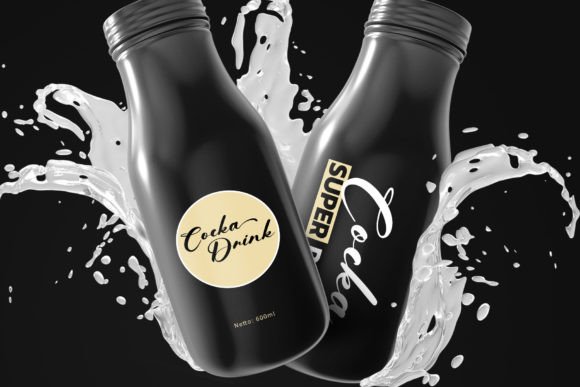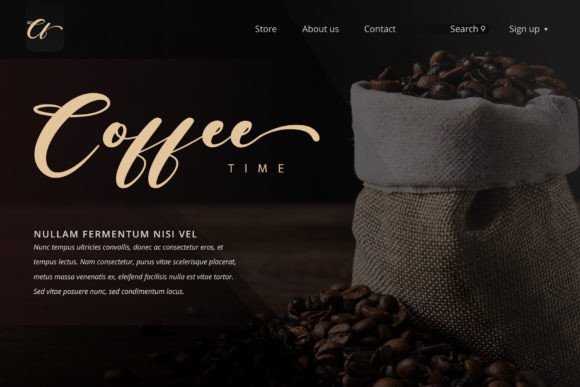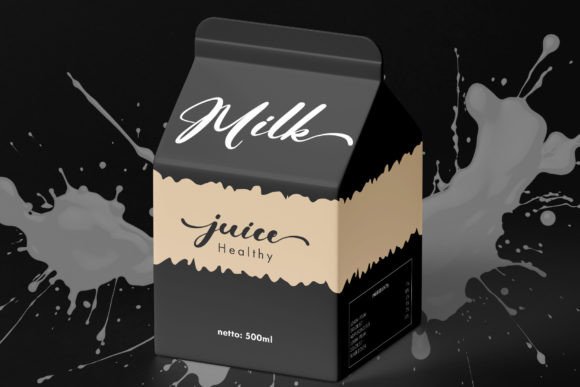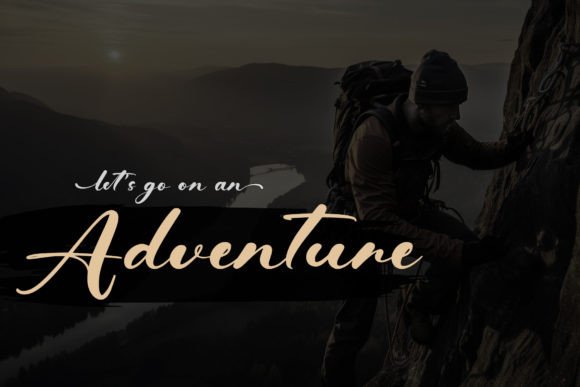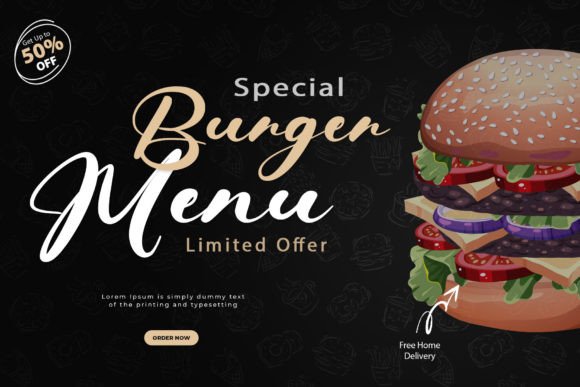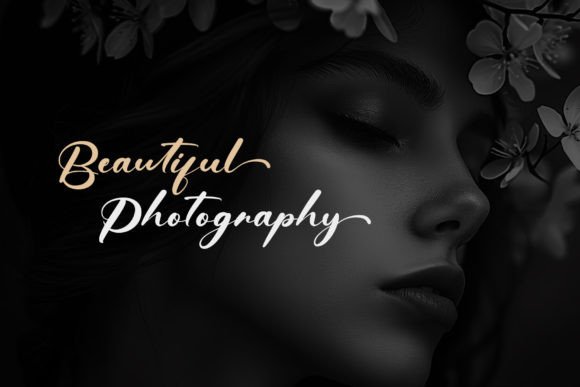
Introducing Dealyo Font: Where Boldness Meets Whimsy
Step into the enchanting world of Dealyo, a handwritten font that combines boldness with whimsy, making it the perfect addition to any creative project. Whether you’re designing posters, branding materials, packaging, or anything in between, Dealyo adds a unique flair that sets your work apart. With its rustic charm and bold elegance, this font is sure to elevate your creations and leave a lasting impression.
The Perfect Blend of Boldness and Whimsy
Dealyo Font is a masterful blend of bold and whimsical elements, making it a versatile choice for designers and crafters. Its handwritten style gives it a personal touch, perfect for projects that require a human feel. The font’s boldness ensures that your message gets attention, while its whimsical elements add a playful and creative twist. This unique combination makes Dealyo an excellent choice for a wide range of applications, from advertising and marketing materials to packaging and branding.
Dealyo Font is perfect for a variety of creative projects, including:
- Posters and Flyers: Add a bold and eye-catching touch to your posters and flyers with Dealyo’s unique style.
- Branding and Logo Design: Create a lasting impression with Dealyo’s bold and whimsical font, perfect for logos and branding materials.
- Packaging Design: Stand out on store shelves with Dealyo’s rustic charm and bold elegance, perfect for packaging design.
- Social Media Graphics: Add a personal touch to your social media graphics with Dealyo’s handwritten font.
- Experiment with swashes: Add a touch of elegance and sophistication with Dealyo’s swashes, perfect for logos, titles, and headings.
Why Choose Dealyo Font?
With so many fonts available, why choose Dealyo? Here are just a few reasons why Dealyo Font stands out:
- Unique Style: Dealyo’s bold and whimsical style sets it apart from other fonts, making it perfect for designers and crafters looking for something new and exciting.
- Versatility: Dealyo Font is suitable for a wide range of applications, from posters and branding to packaging and social media graphics.
Dealyo Font is a game-changer for designers and crafters looking to add a personal touch to their creative projects. With its bold and whimsical style, PUA encoding, and versatility, Dealyo is the perfect choice for anyone seeking a unique and exceptional font. So why wait? Embrace the rustic charm and bold elegance of Dealyo Font and elevate your creations to new heights.